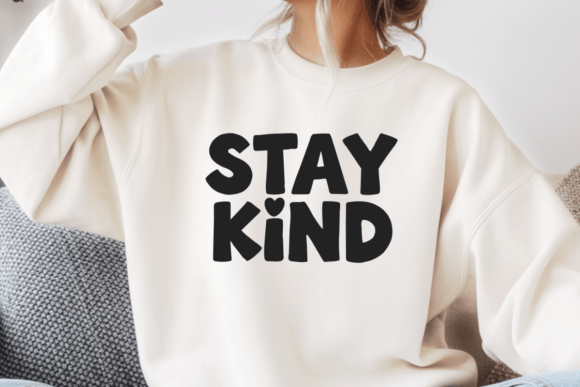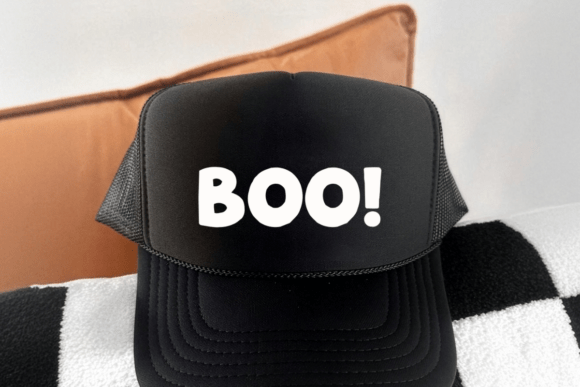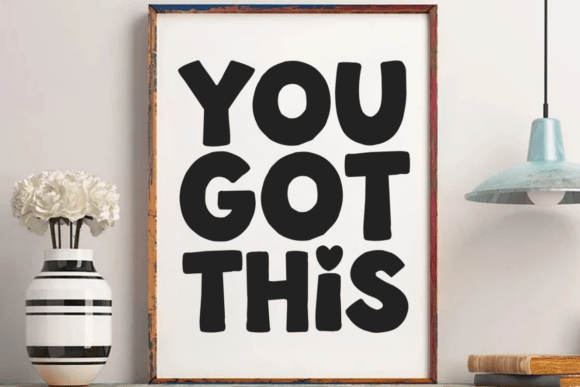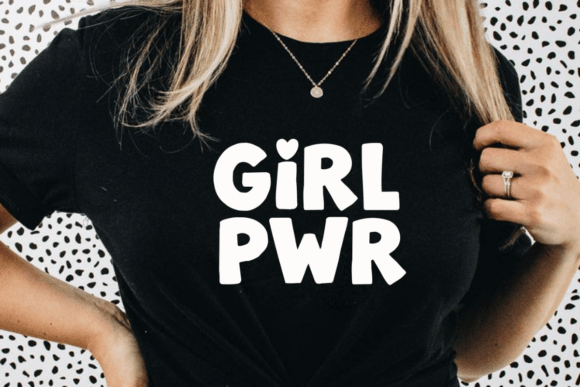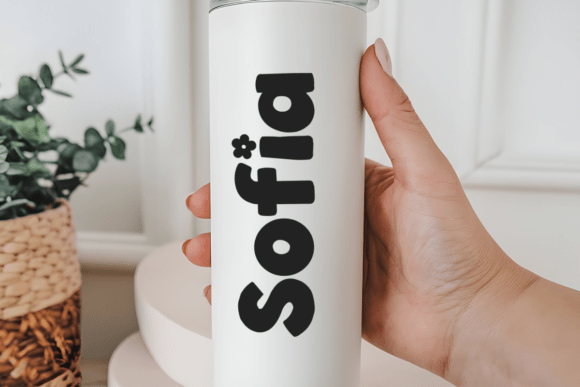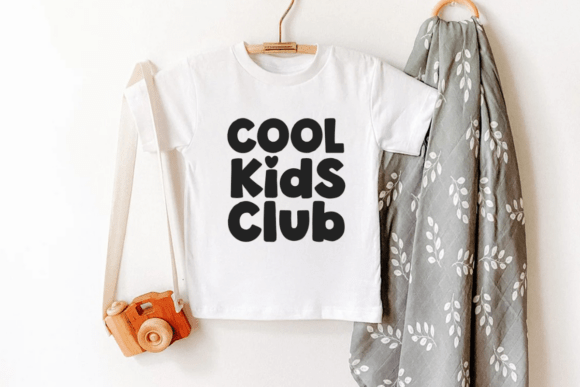
Introduction to King Ship Font
King Ship is a modern, handwritten, bold font.
It has beautiful and well-balanced characters, and as a result, it matches a wide pool of designs It is the best choice for creating eye-catching logos, branding, and quotes.